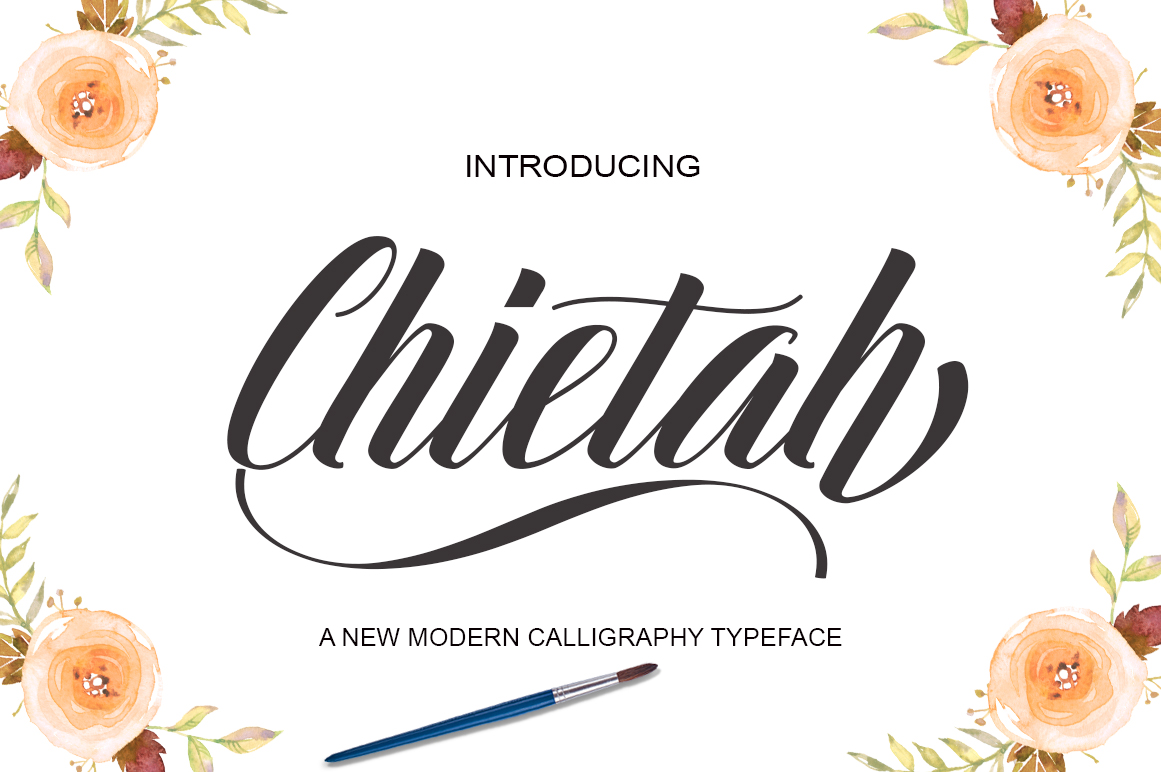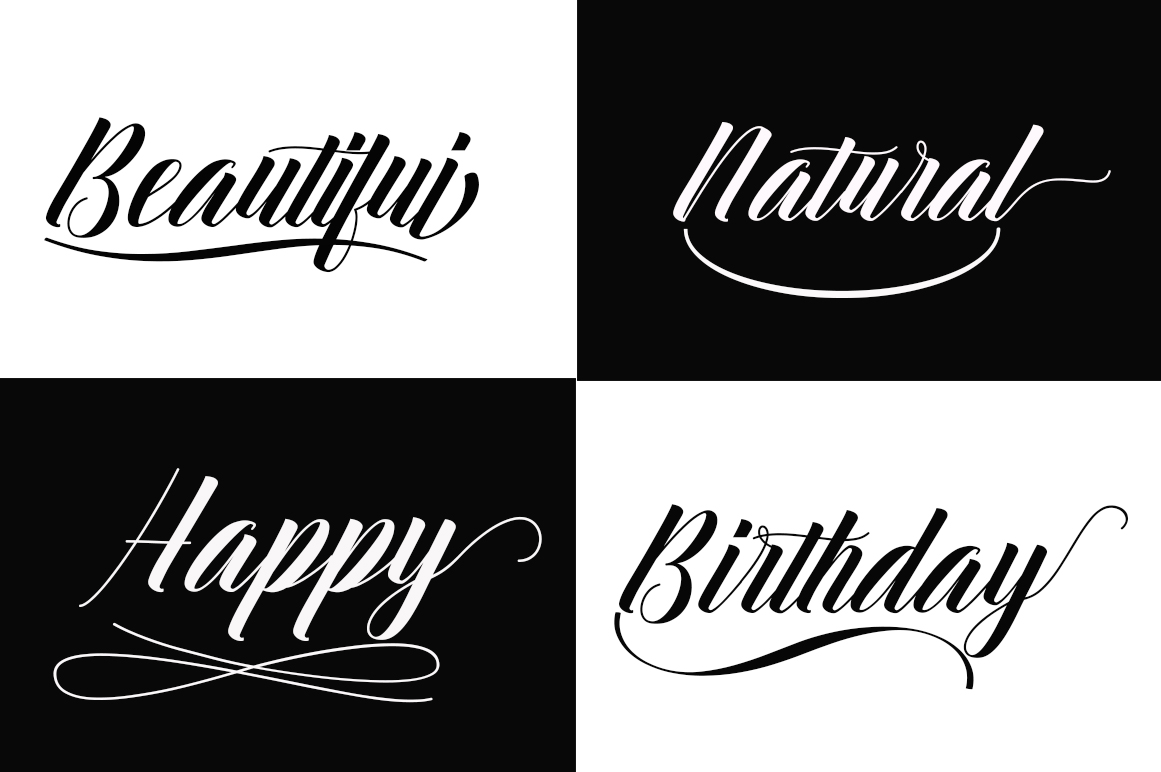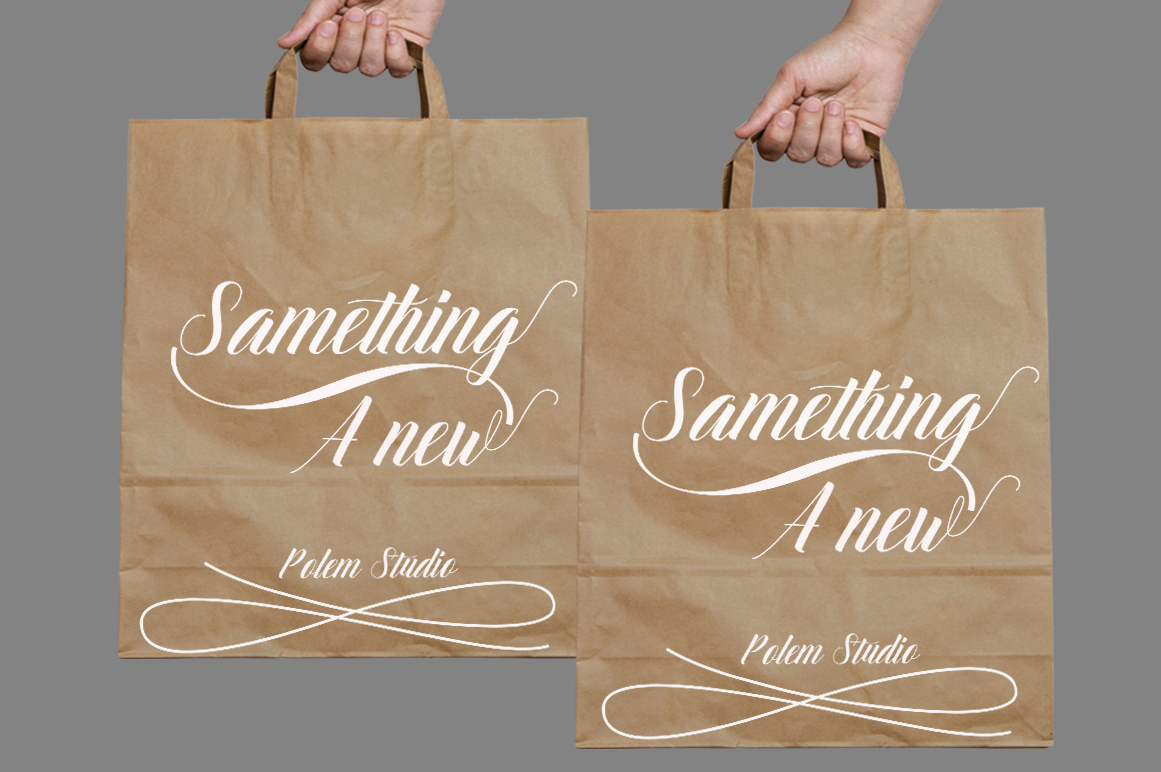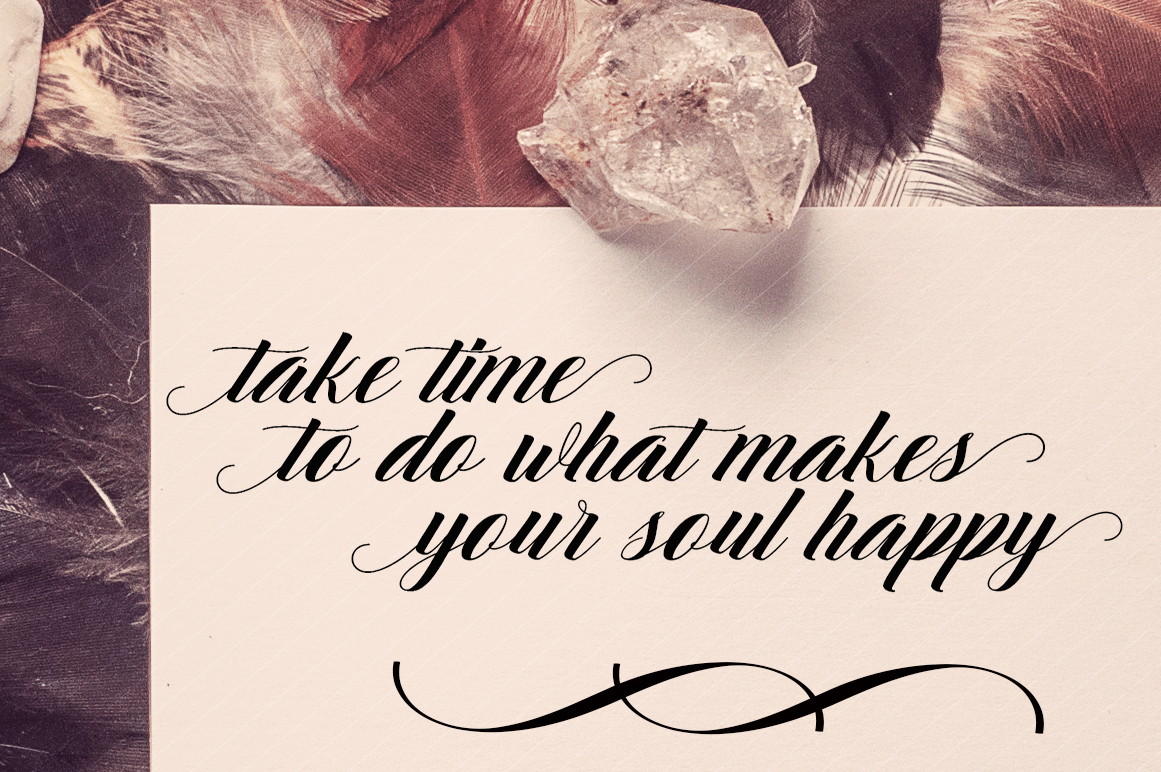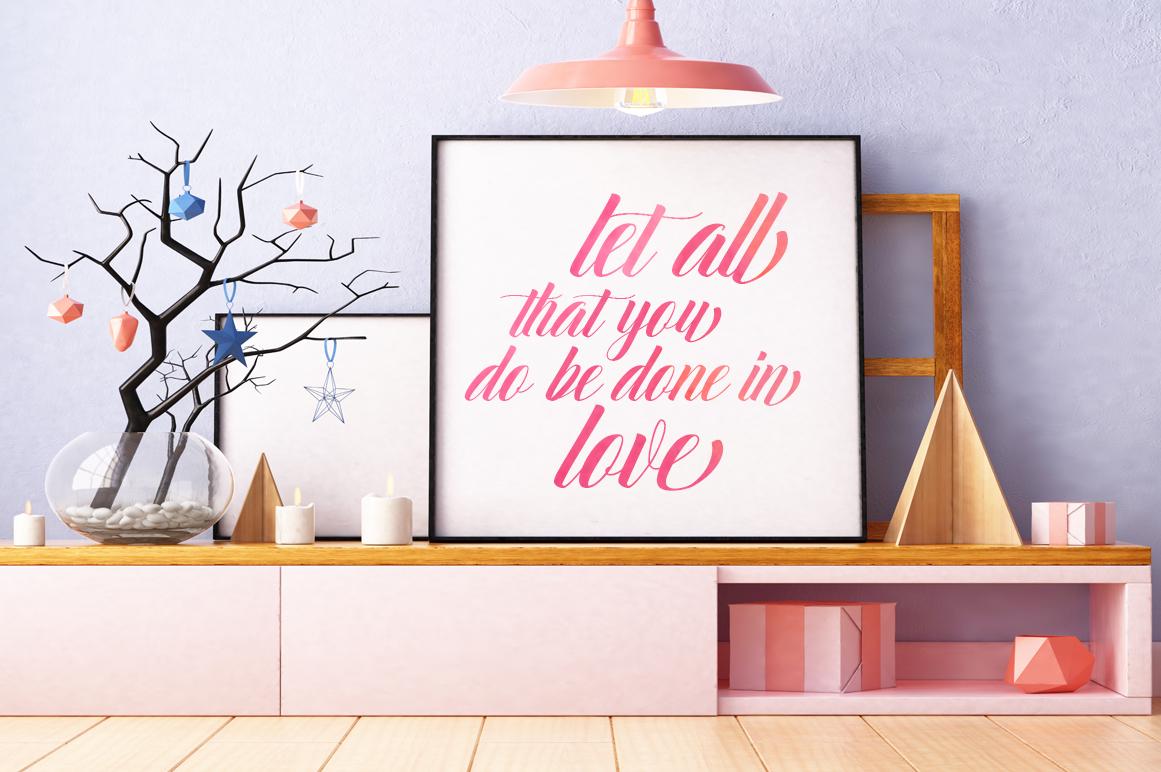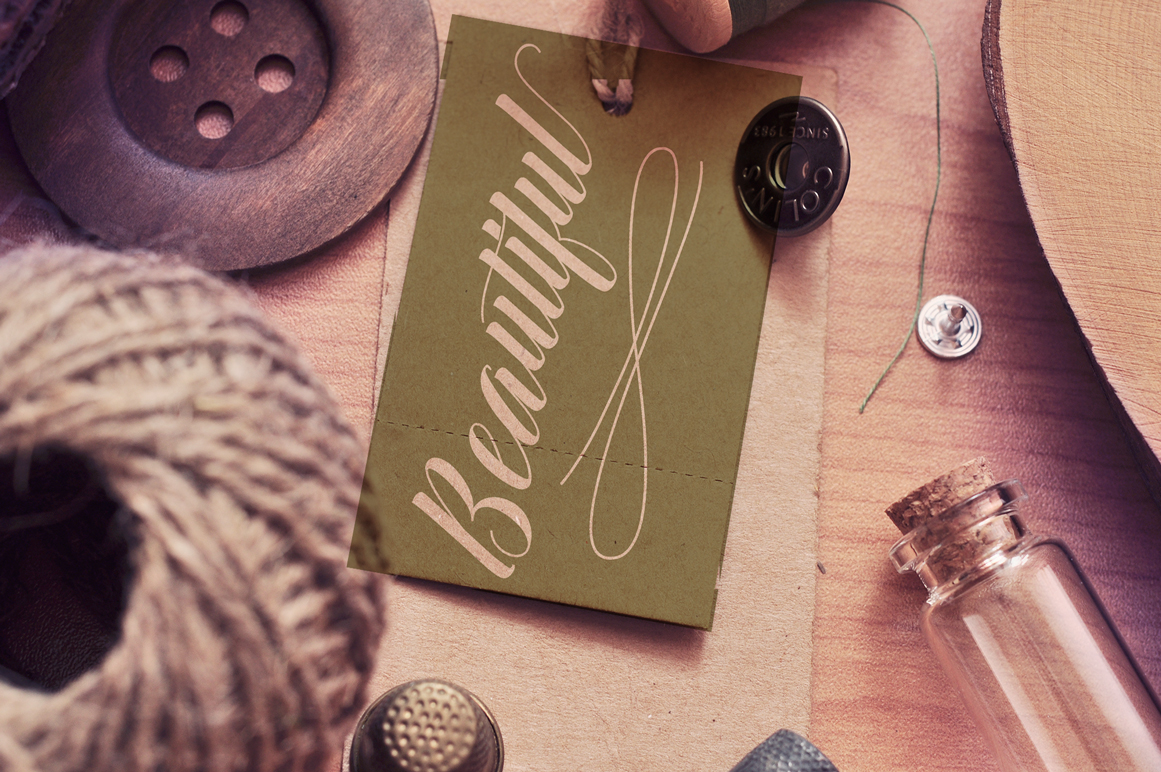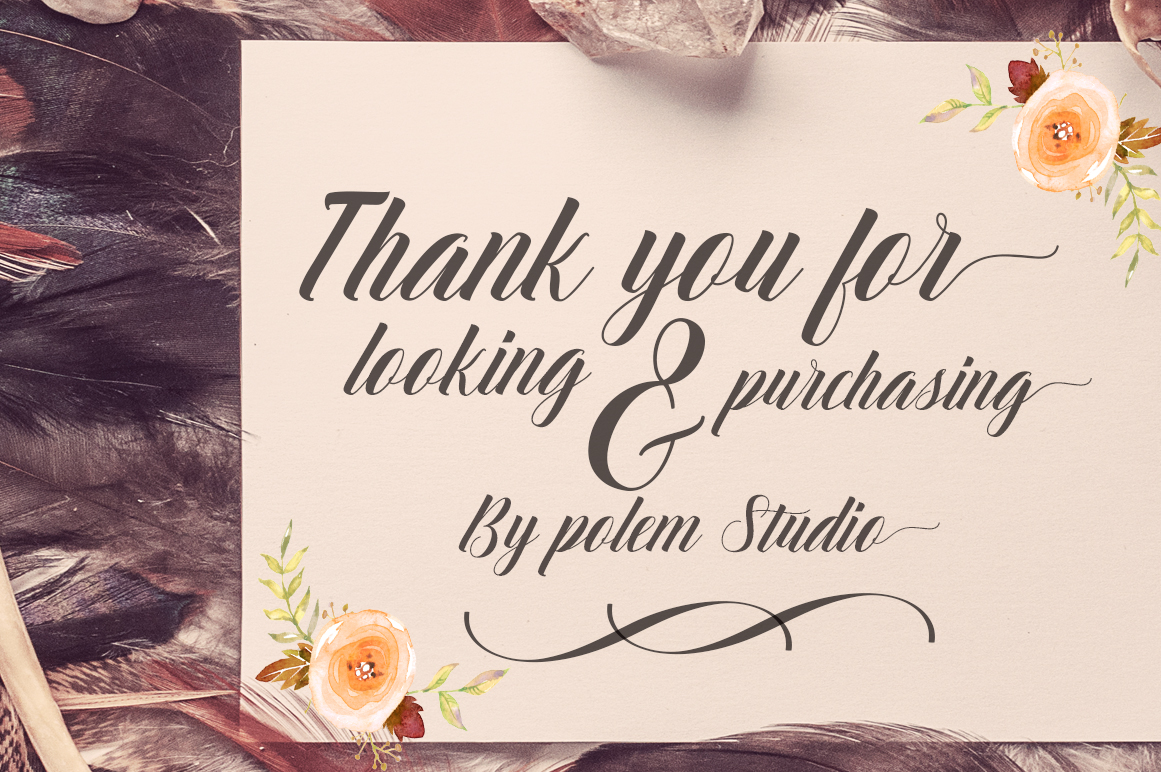
Chietah Font
About Chietah Font
Chietah is a stunning, stylish handwritten calligraphy font.
Chietah features 404 unique glyphs and features initial and terminal letters, alternates, ligatures and support for multiple languages.